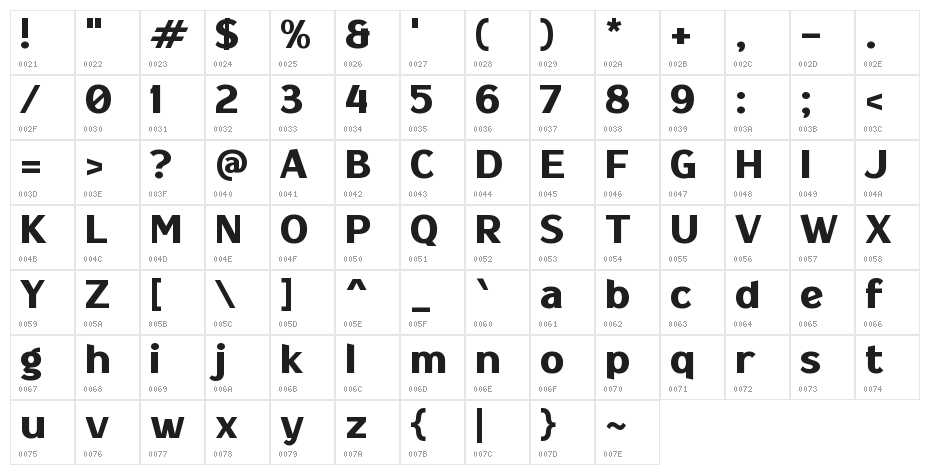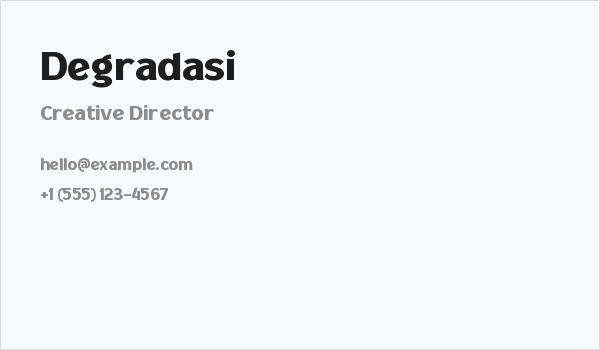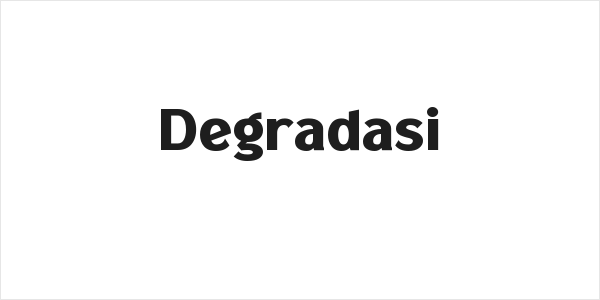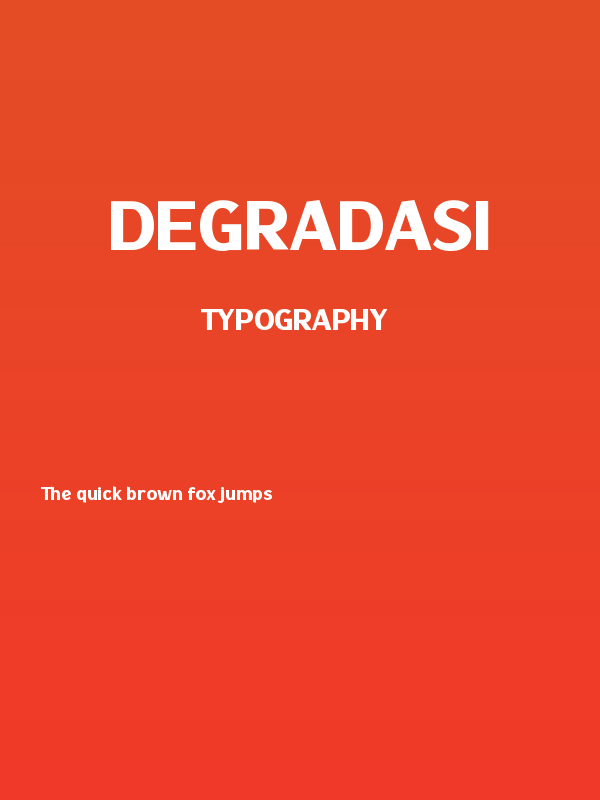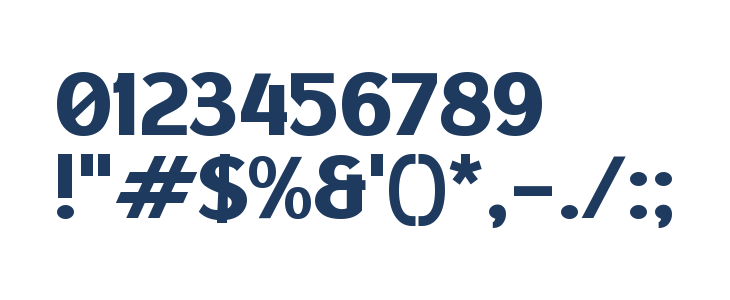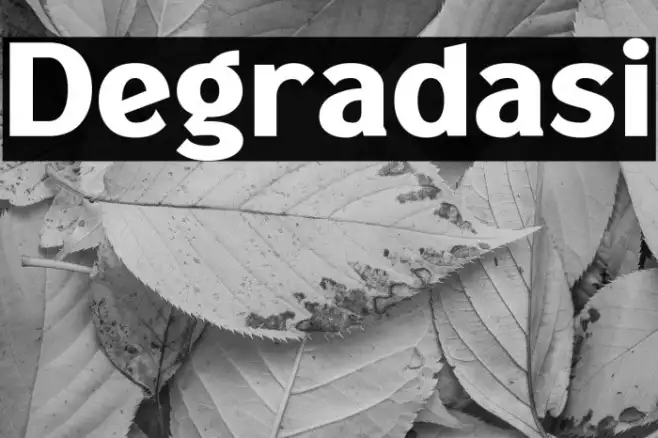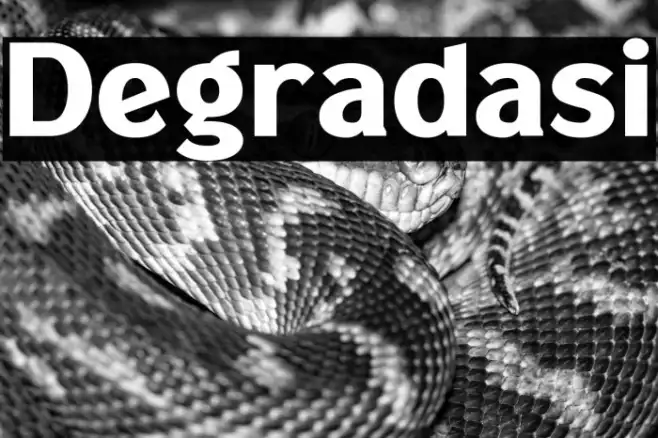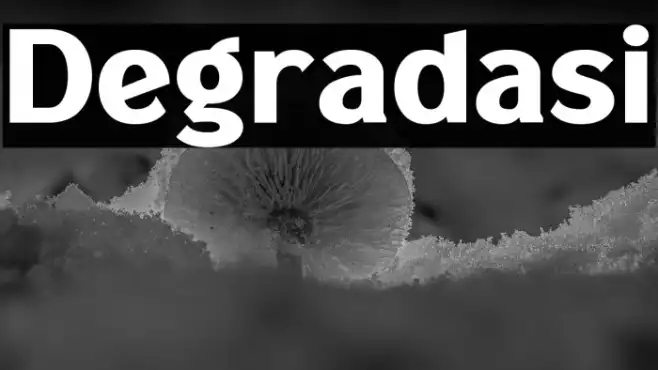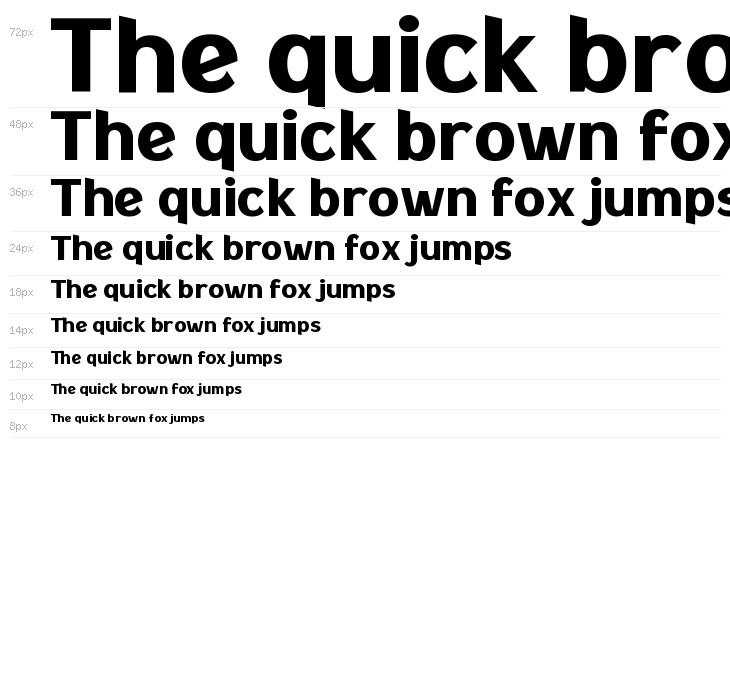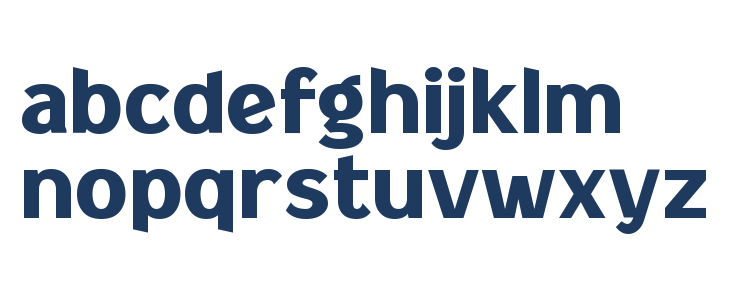
Degradasi Font
Degradasi Description
This font features a bold and modern sans-serif design, characterized by clean lines and a strong presence. The uppercase and lowercase letters are well-proportioned, with a consistent stroke width that gives the font a balanced and harmonious appearance. The numerals are clear and easily distinguishable, making them suitable for various applications. The special characters are designed to complement the overall style, maintaining the font's cohesive look. This typeface is versatile and can be used in a variety of design projects, from digital to print media.
| Use Case | Headlines, Logos, Advertising |
| Proposed Projects | Ideal for branding, advertising, headlines, and digital media projects. |